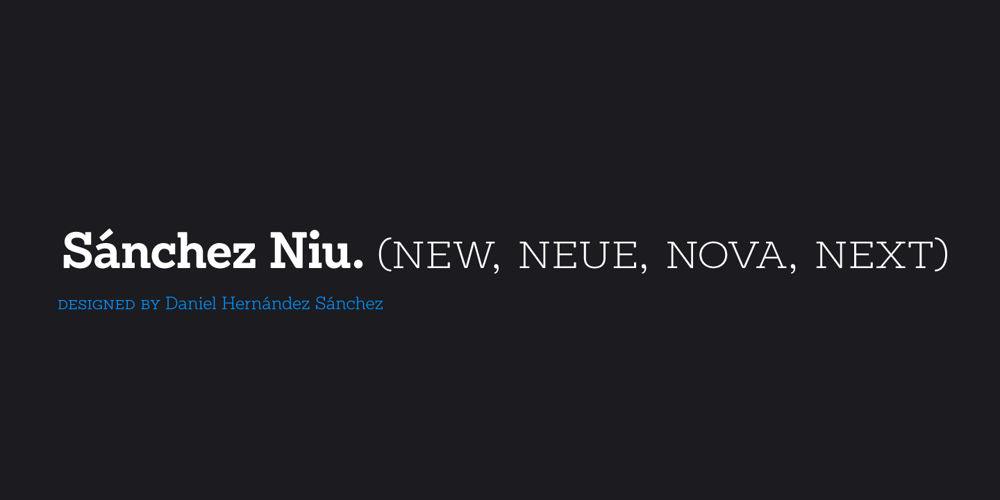
Sánchez Niu Font Family was designed by Daniel Hernández and published by Latinotype. Sánchez Niu contains 12 styles and family package options. Sánchez Niu is a redesign of Sánchez—one of the first font families by Latinotype designed in 2011. In the typedesign industry the terms ‘nova’, ‘neue’, ‘next’, ‘new’ are often used to refer to a typeface that has been modified in different ways: redesign, technical readjustments, greater number of characters, etc. At Latinotype we are now starting to use the word ‘niu’ to refer to these kinds of typefaces. Niu is an adaptation of the original word ‘new’, i.e., we have adapted this English word to the phonology and spelling of our own language but keeping the original meaning. Race mixing, diversity, change and adaptation are part of the essence of Latin American culture and, at Latinotype, we are all constantly expressing these elements in everything we do. Latin Power! This new version includes improvements that make it work well with longer text. Such improvements have not had a major effect on the look of the font, though. We have adjusted the original proportions and added a number of new characters as well as OpenType features such as small caps, oldstyle figures, tabular numbers and stylistic alternates. Sánchez Niu contains a set of 720 characters that support 219 languages. The font is well-suited for long text, headlines and logotypes, and it has been optimised for web usage. Sánchez Niu comes with two free fonts—Regular and Regular Italic! Corrections, digital editing and review by César Araya, Rodrigo Fuenzalida and Alfonso García.